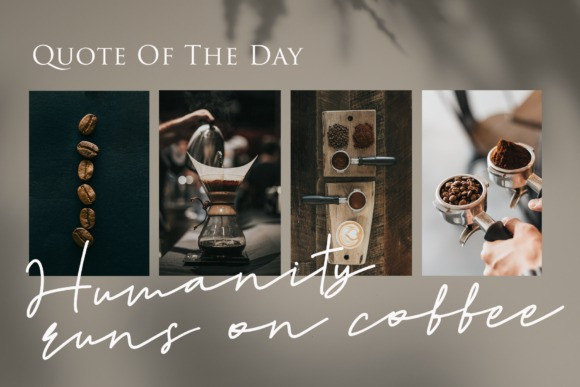
FontBlade Handbrush Font
FontBlade A rustic, dapper handwritten font with a personal charm. With quick dry strokes and a brush style, FontBlade is perfect for branding projects, homeware designs, product packaging – or simply as a stylish text overlay to any background image.